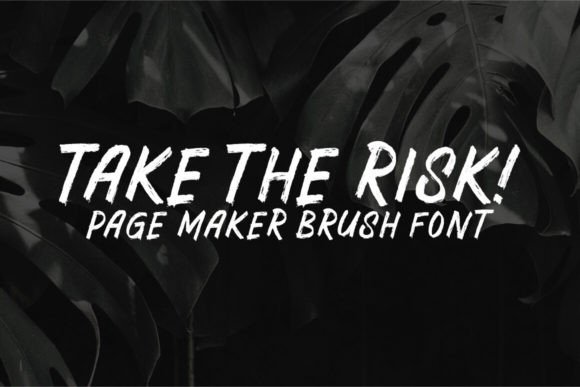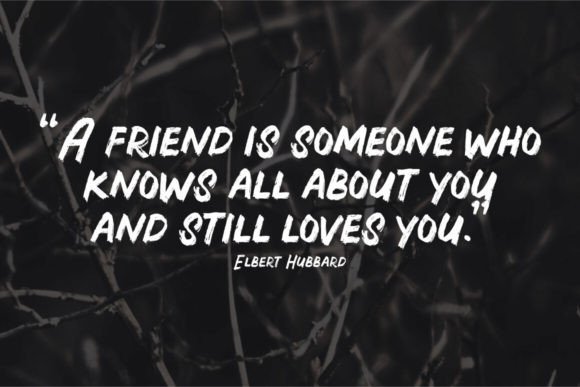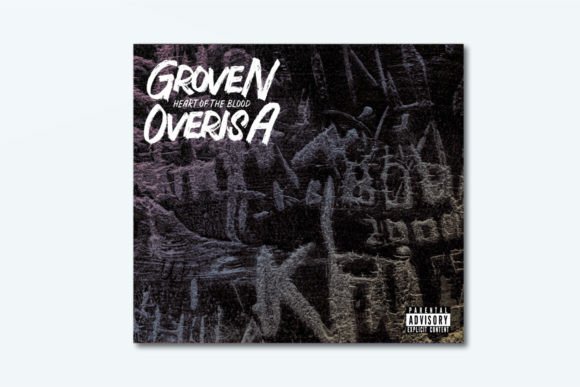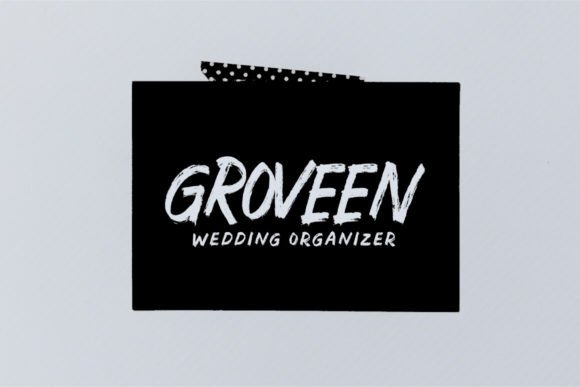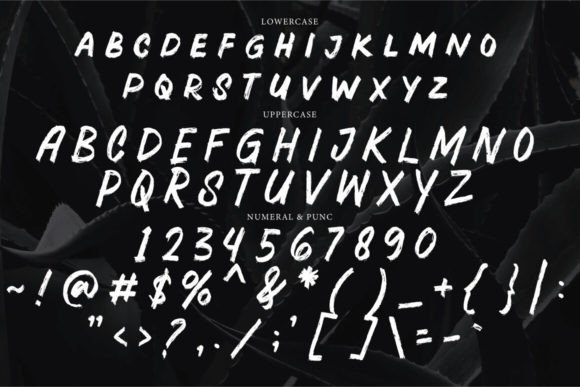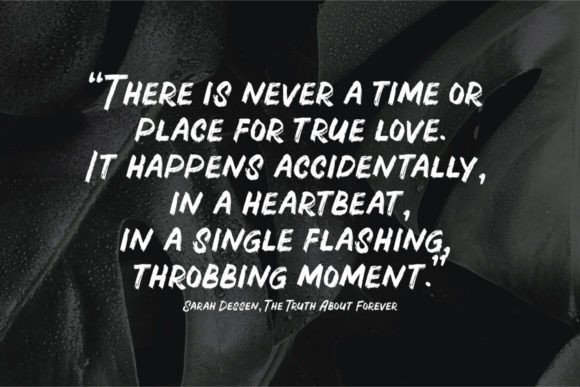
Introduction to Page Maker Font
Have you ever been brainstorming a creative project and suddenly, an idea pops up that you just can’t wait to bring to life? It’s that rush of inspiration that often sets the tone for a high-quality design, and it’s exactly what the Page Maker Font is designed to capture.
Whether you’re working on a free download or a commercial project, having the right design resource can make all the difference. For designers looking to add a touch of artistic flair to their work, the Page Maker Font is an excellent choice. Its handcrafted, brush-stroke appearance is perfect for posters, headlines, and signage that require a bold and eye-catching look.
Key Features of Page Maker Font
• High-quality design: Page Maker Font offers crisp and clear typography, ideal for creative projects that require attention to detail.
• Transparent background: The font’s transparent background allows for seamless integration with various design elements, giving users more creative freedom.
• Unique characteristics: Page Maker Font features a distinctive, modern design that sets it apart from other fonts in its class, making it an excellent choice for designers looking to add a touch of sophistication to their creative project.
Honest Review: Page Maker Font
I recently had the chance to try out the Page Maker Font, and I’m excited to share my thoughts on this design resource. I downloaded it for free, and I was pleased to find that it’s a high-quality font perfect for a creative project.
What works well: ✨ I love the variety of styles and weights available in the Page Maker Font. It’s a great choice for titles and headings, and the transparent background makes it easy to layer with other design elements. The font is also highly customizable, making it a great addition to any design project.
• Wide range of styles and weights
• Transparent background for easy layering
• Highly customizable
However, I did encounter a few limitations: ⚠️ The font is not as extensive as some other font collections I’ve used, and some of the characters are not as well-designed as others. Additionally, the font may not be suitable for large blocks of text, as it can become difficult to read.
Overall, I’m impressed with the Page Maker Font. It’s a great free download that’s perfect for small design projects or as a supplement to other fonts in your collection. While it’s not without its limitations, I would definitely recommend it to designers looking for a high-quality, creative font.
Tips for Getting the Most Out of Page Maker Font
For a free download, consider using the Page Maker Font in conjunction with other design resources to create a unique and eye-catching design. To ensure high-quality results, make sure to use a transparent background and adjust the font size and style as needed.
The Page Maker Font is ideal for a variety of creative projects, including business cards, brochures, and presentations. It is also a great design resource for websites and social media graphics.